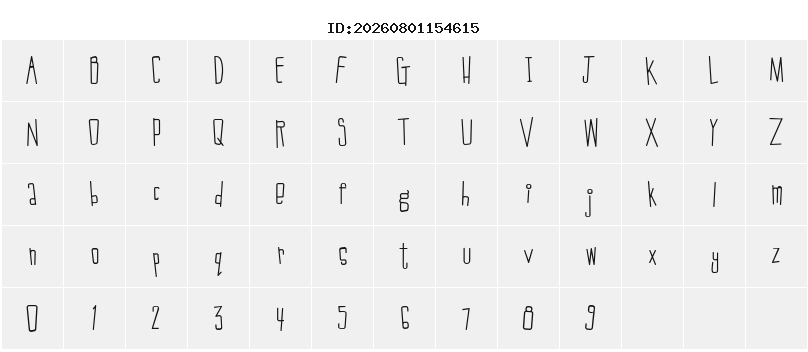
• Font Name: LDJ Jilly Nilly
• Font ID: LD Jilly Nilly
• Full Font Name: LDJ Jilly Nilly
• PostScript Name: LDJJillyNilly
About LDJ Jilly Nilly.ttf
LDJ Jilly Nilly.ttf is a modern, elegant sans-serif font designed for ultimate readability and visual harmony. Perfect for branding, headlines, web design, and print materials.